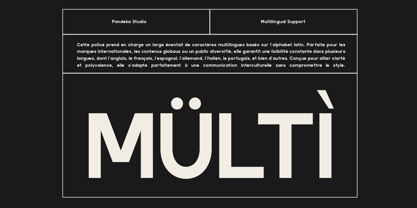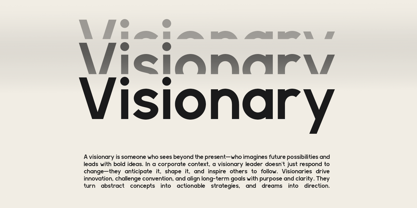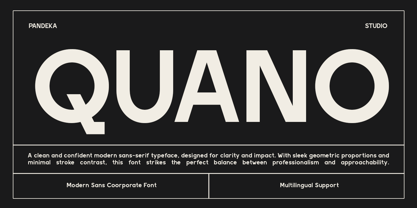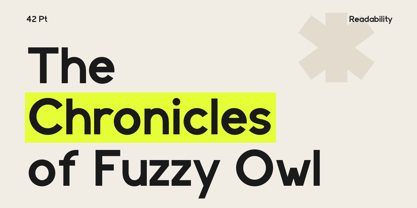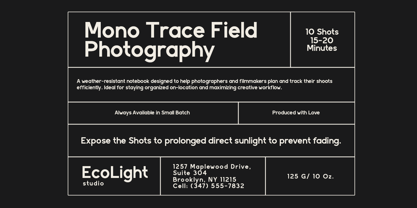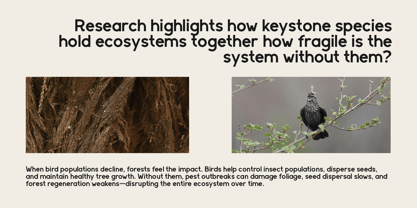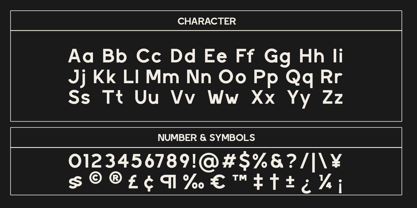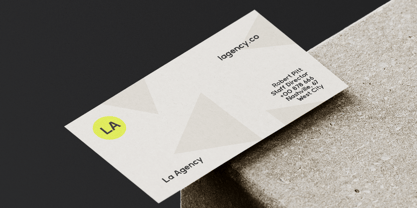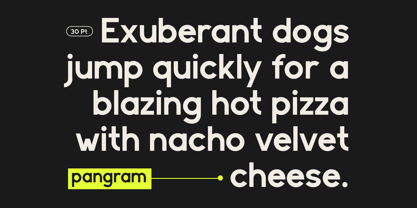
Quano is a clean and contemporary sans serif font designed for clarity, precision, and timeless appeal. With its balanced proportions, geometric construction, and sleek letterforms, Quano excels in editorial layouts, branding, presentations, web design, and corporate identities. Its minimalist style ensures excellent readability while maintaining a modern, sophisticated tone.
Featuring 2 style: Regular and Oblique, Quano offers versatility without complexity, making it a go-to choice for designers seeking a professional yet approachable look. It comes complete with uppercase and lowercase letters, numerals, punctuation, symbols, and multilingual support, making it ideal for both local and global projects.
• 2 Style: Regular and Oblique
• Full Character Set: Uppercase, lowercase, numbers, symbols, and punctuation